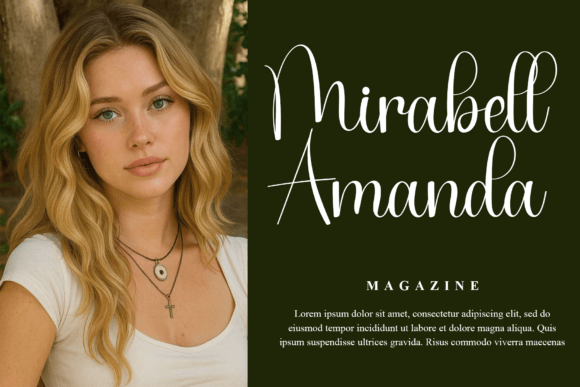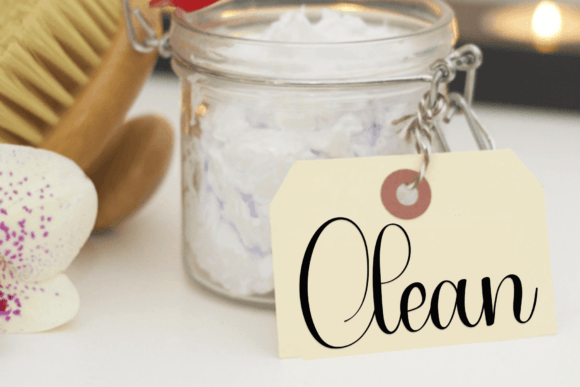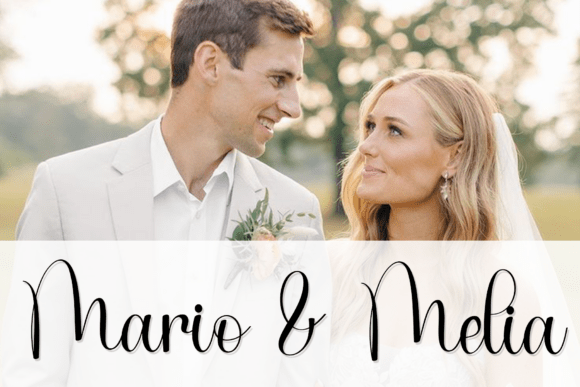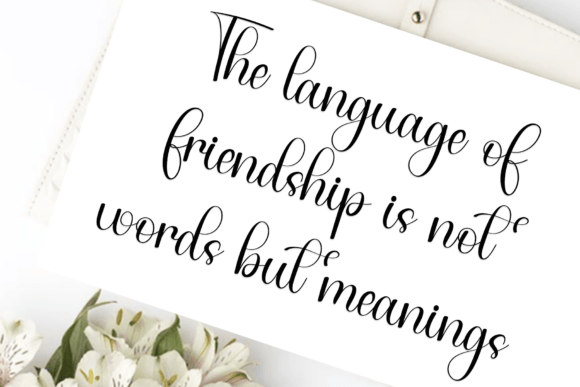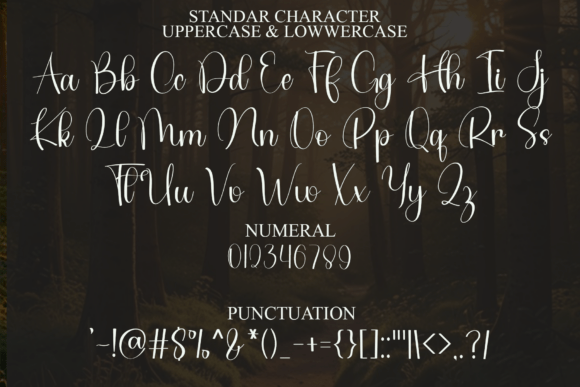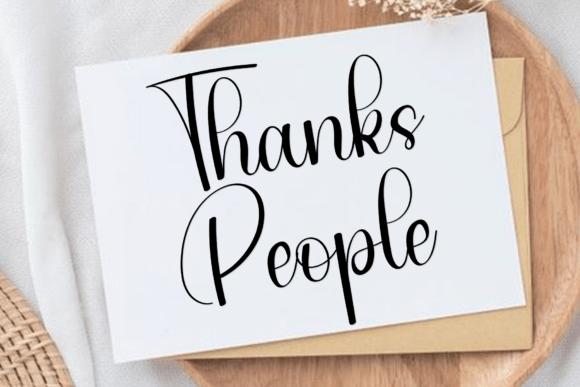
Introduction to Outside Graduation Font
Imagine you’re sitting at your desk, surrounded by papers, glue, and glitter, as you work on a holiday craft project. You’re searching for the perfect font to add a touch of magic to your design. Suddenly, you stumble upon the Outside Graduation Font, and your creative juices start flowing. This festive and merry typeface is a game-changer for designers looking to add a whimsical flair to their projects.
As a valuable design resource, the Outside Graduation Font is perfect for greeting cards, gift tags, and holiday-themed projects. With its decorative elements and PUA encoding, you can access all of the amazing glyphs and ligatures with ease. Whether you’re working on a creative project or simply need a high-quality font for your design, the Outside Graduation Font is a great choice. And the best part? It’s available for free download, making it an excellent addition to your design arsenal.
With its transparent background and high-quality design, the Outside Graduation Font is a must-have for designers looking to add a touch of enchantment to their work. So why settle for a bland font when you can add a dash of magic to your design with the Outside Graduation Font?
Key Features of Outside Graduation Font
- Unique, creative design perfect for a graduation project or any other creative project.
- High-quality font suitable as a design resource for various applications.
- Includes a wide range of characters, including uppercase and lowercase letters, numbers, and special characters.
Honest Review: Outside Graduation Font
I recently came across the Outside Graduation Font, and I must say it’s a great addition to any designer’s toolkit. This free download is perfect for a creative project that requires a modern and clean aesthetic.
Here are some things that work well with this font:
- ✨ High quality design that looks great on various backgrounds.
- ✨ The transparent background makes it easy to overlay on any image or video.
- ✨ Great for creating eye-catching titles and headings in your design.
- ⚠️ Limited font sizes and styles, which may limit its versatility in some projects.
- ⚠️ Not ideal for text-heavy designs, as it can be difficult to read in smaller font sizes.
Overall, I’m impressed with the Outside Graduation Font. It’s a great design resource for designers who want a modern and sleek look for their projects. While it has some limitations, it’s a great addition to any designer’s collection.
The Outside Graduation Font is perfect for various creative projects, including graduation invitations, party decorations, and social media graphics. Its high-quality design and transparent background make it easy to use in any design platform.
To get the most out of the Outside Graduation Font, experiment with different font sizes, colors, and placements. You can also combine it with other design elements to create a unique and visually appealing design.